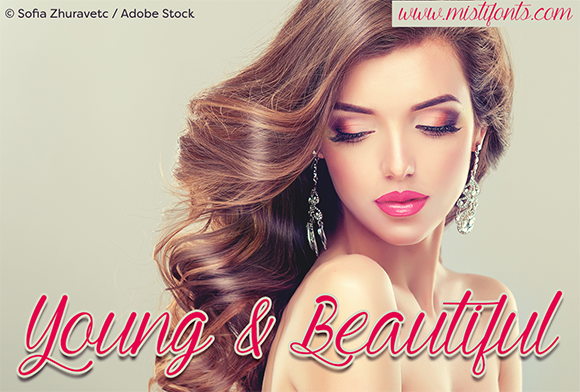
HomeScript FontsYoung and Beautiful Font Script Fonts Young and Beautiful Font FacebookTwitterPinterestWhatsApp About Young and Beautiful Font Young and Beautiful is an elegant calligraphy font that is perfect for your design and craft projects! DOWNLOAD NOW People also explored Crossfit Core Morosyot Script Font Ohio Font Frida Font Darling Script Font Doughnut Font Simptone Font Granny’s Greenhouse Way Home Font 138 0 TagsYoung and Beautiful Font Previous articleOld Language FontNext articleHug Me Tight Font LEAVE A REPLY Cancel reply Comment: Please enter your comment! Name:* Please enter your name here Email:* You have entered an incorrect email address! Please enter your email address here Website: Save my name, email, and website in this browser for the next time I comment. Personal Use Free Cloudy Night Personal Use Free Read more about this font Made of Concrete Personal Use Free Read more about this font BD Algebra Personal Use Free Read more about this font Archeology Personal Use Free Read more about this font BLOG Best Fonts for YouTube Videos: Make Your Thumbnails Stand Out Best Fonts for YouTube Videos: Make Your Thumbnails Stand Out Choosing the right font can make a massive difference in how your YouTube videos perform.... Best Fonts for T-Shirt Design – Top 2025 Picks The 10 Best Handwriting Fonts to Add Personality to Your Designs Where to Buy American Fonts Online in 2024